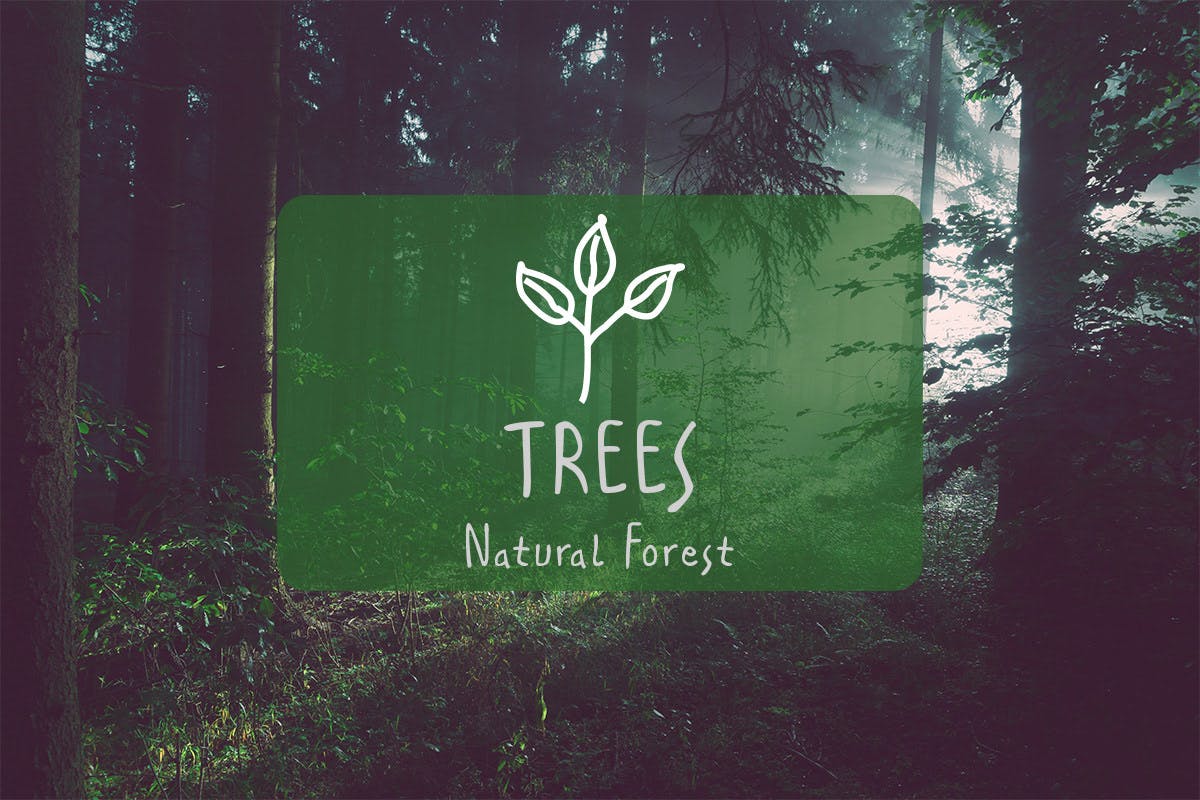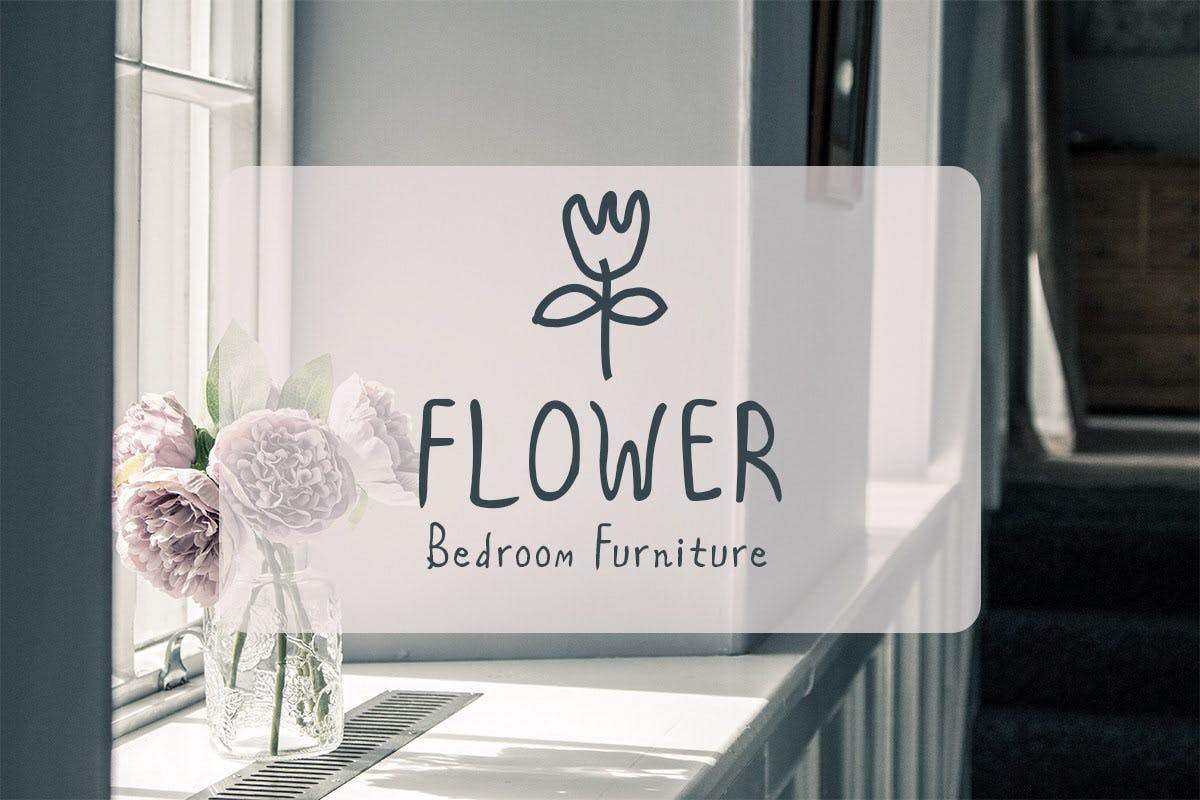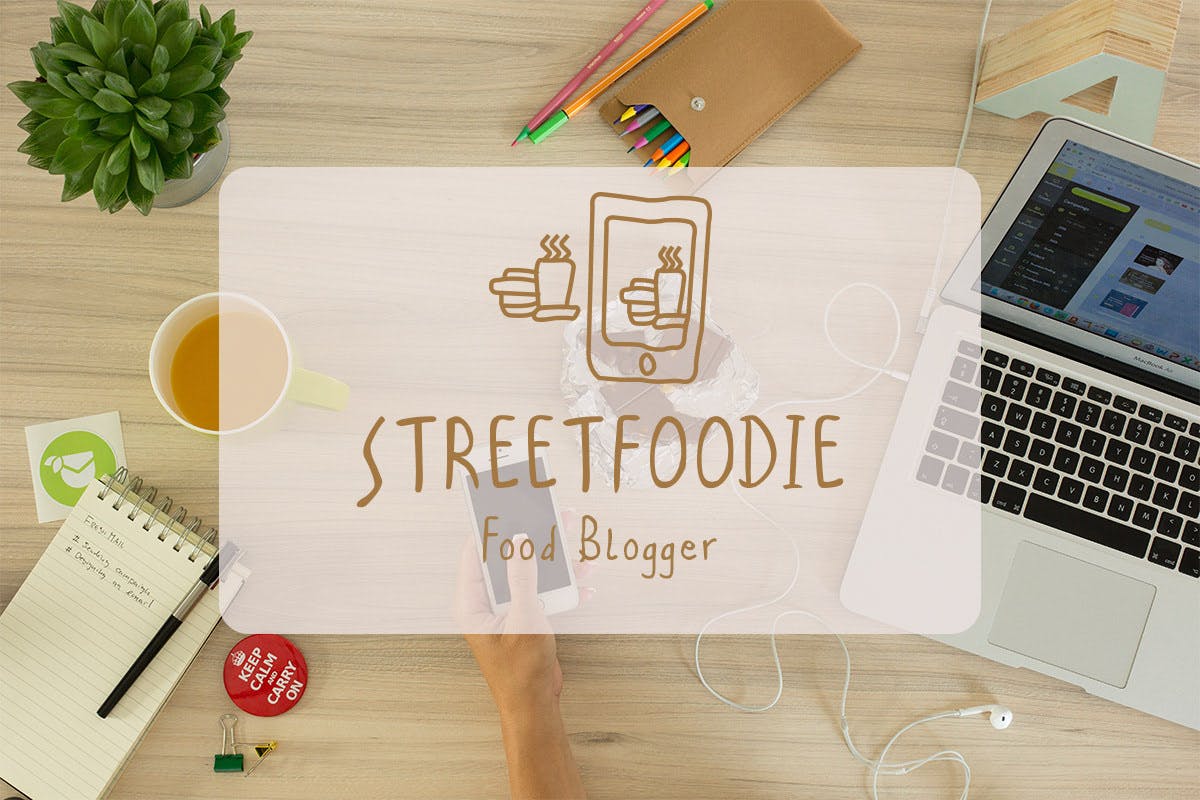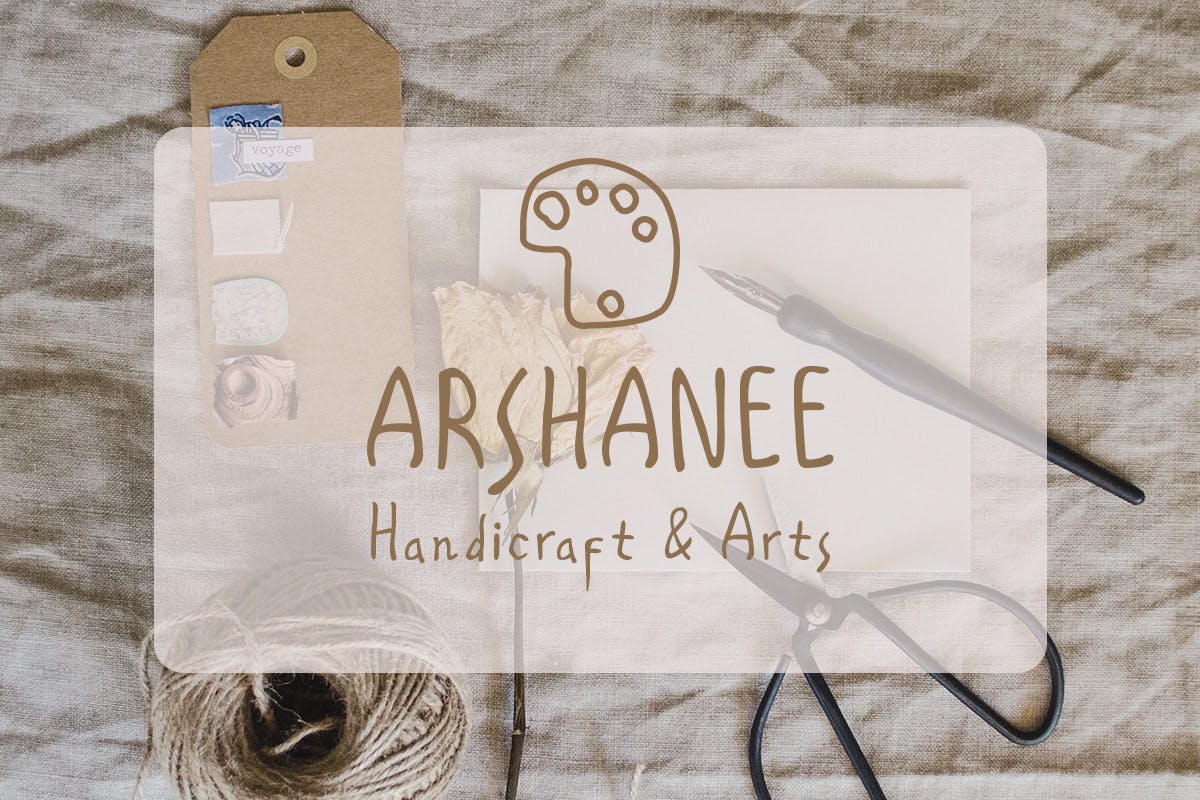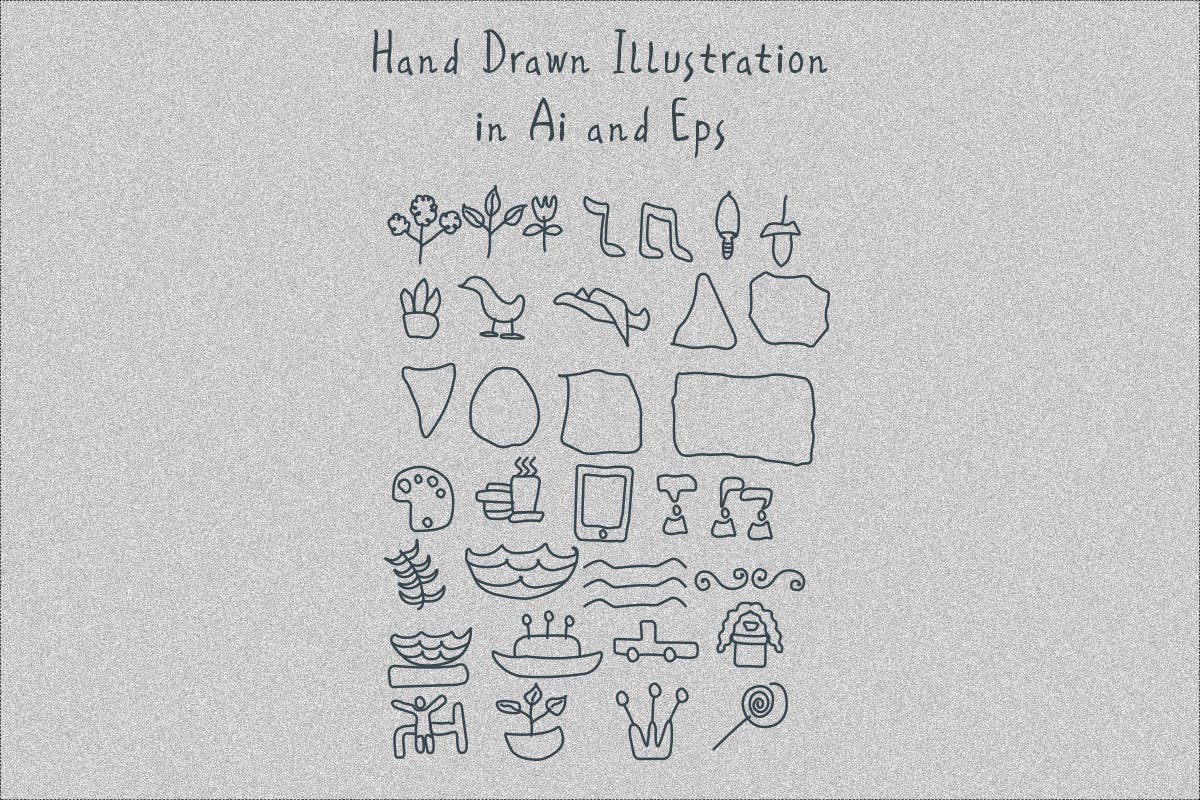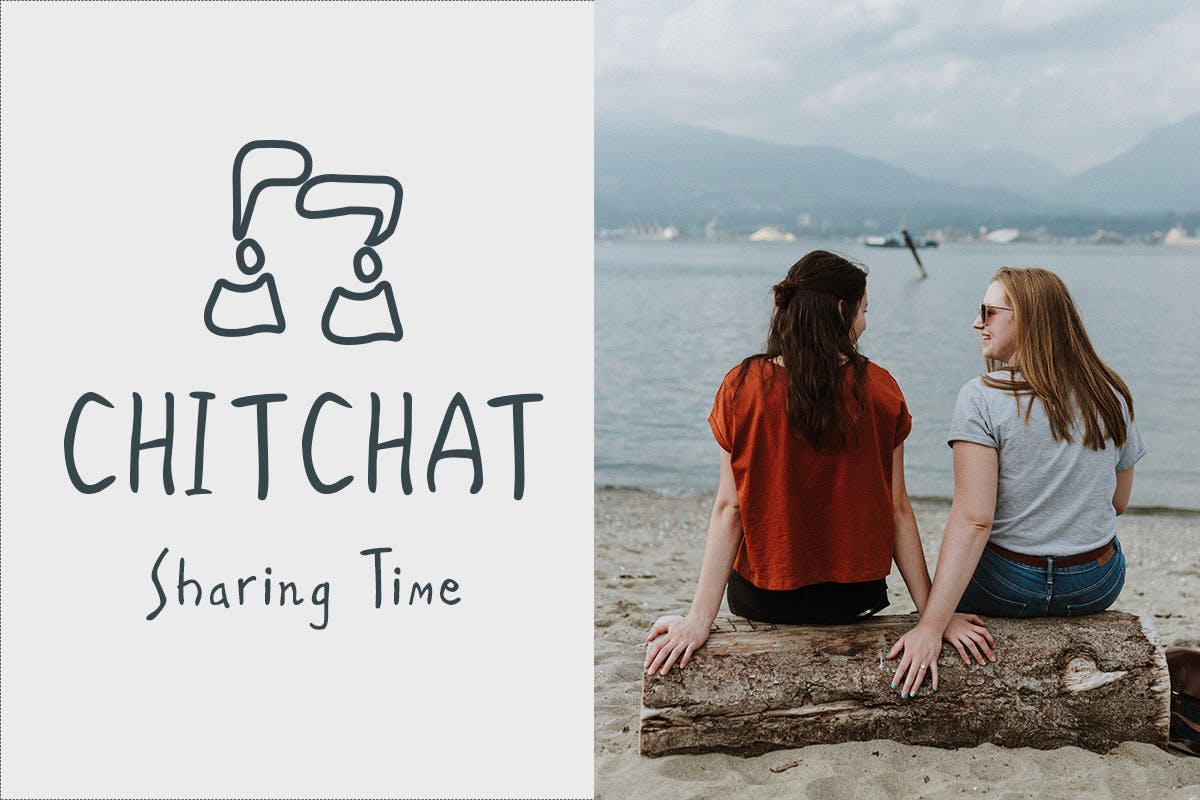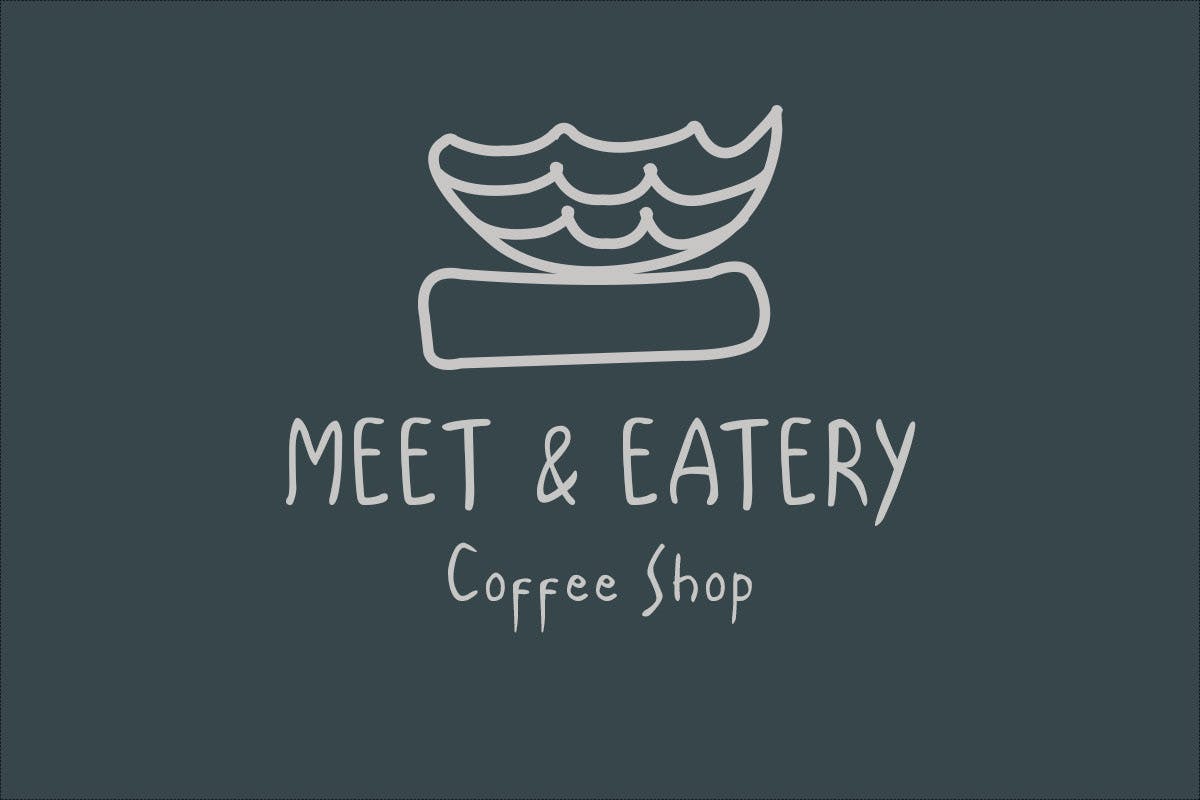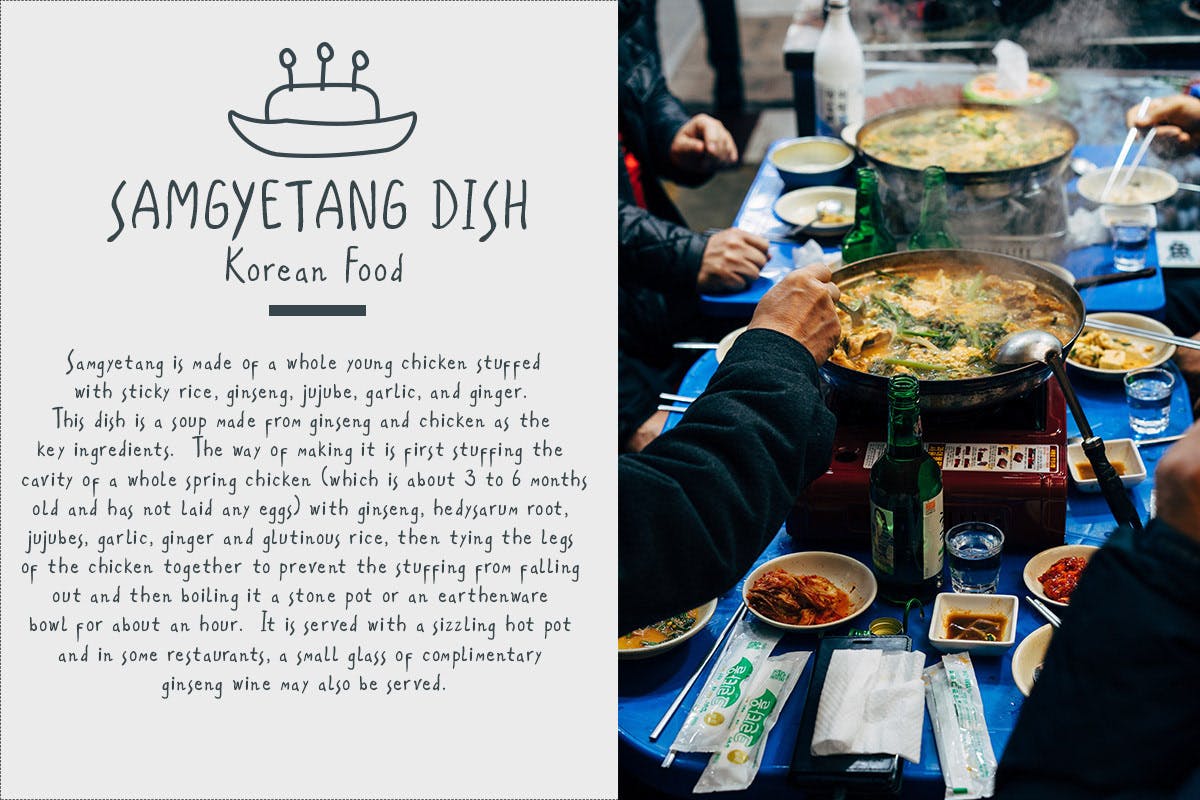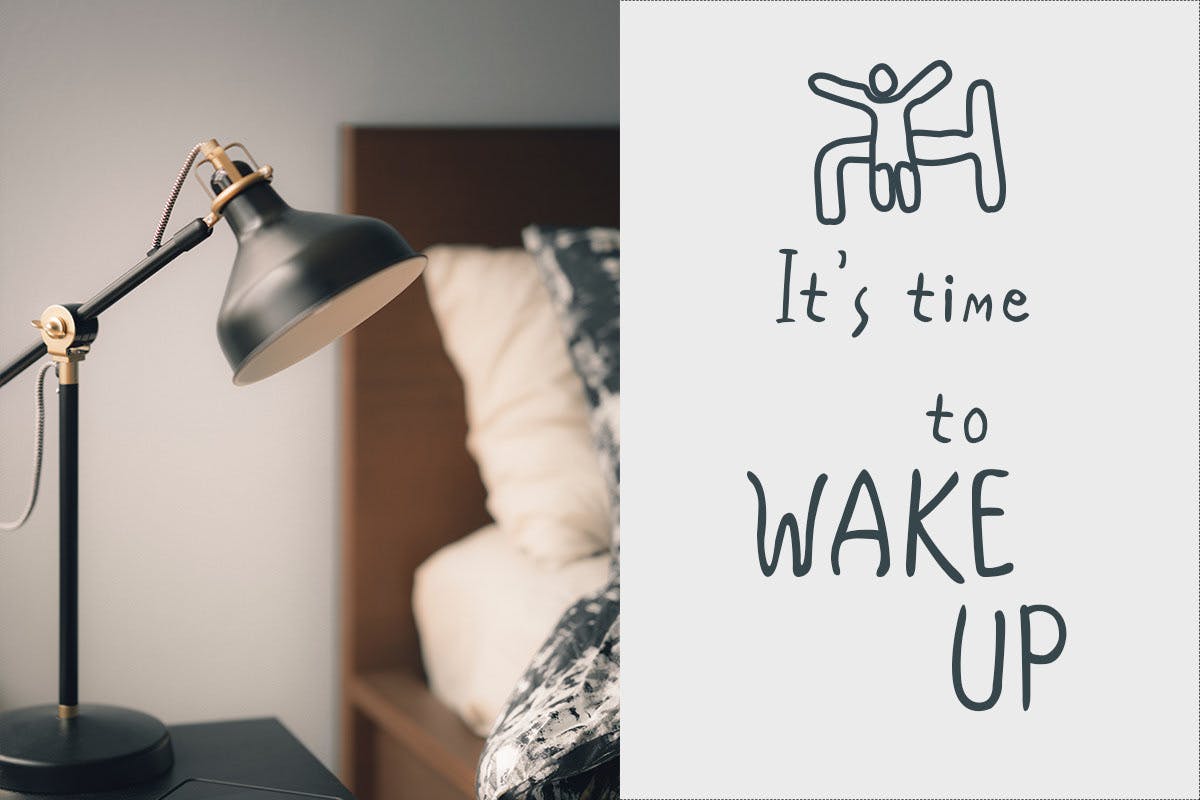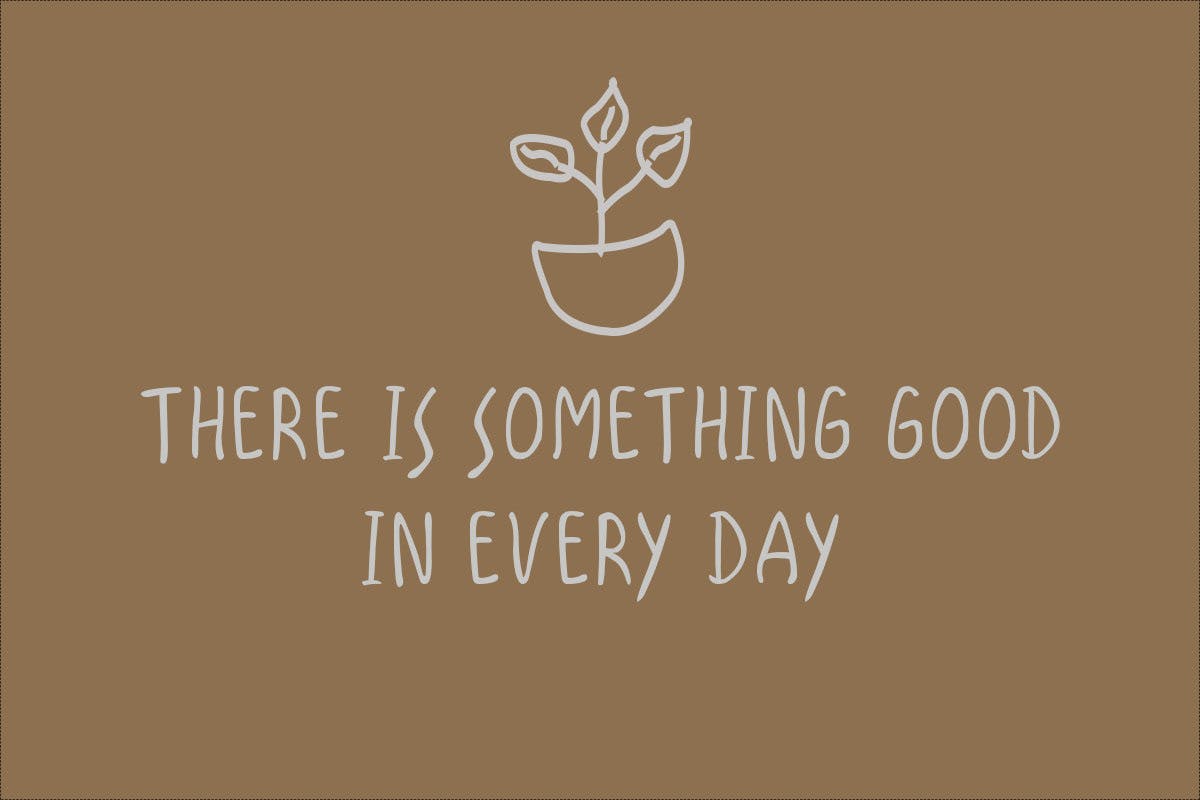
Free Arshavina Display Fonta
Free Arshavina Display Font is a trial font a display font typeface by Denny Sutanto. It comes with a special character look that is very suitable for branding purposes. You can also use the font for other design needs such as logos, quotes, product packaging, merchandise, poster, logo, modern advertising design, special events, apparel design and more. However, this font comes with a personal license, but if you want to get more features, go buy it.